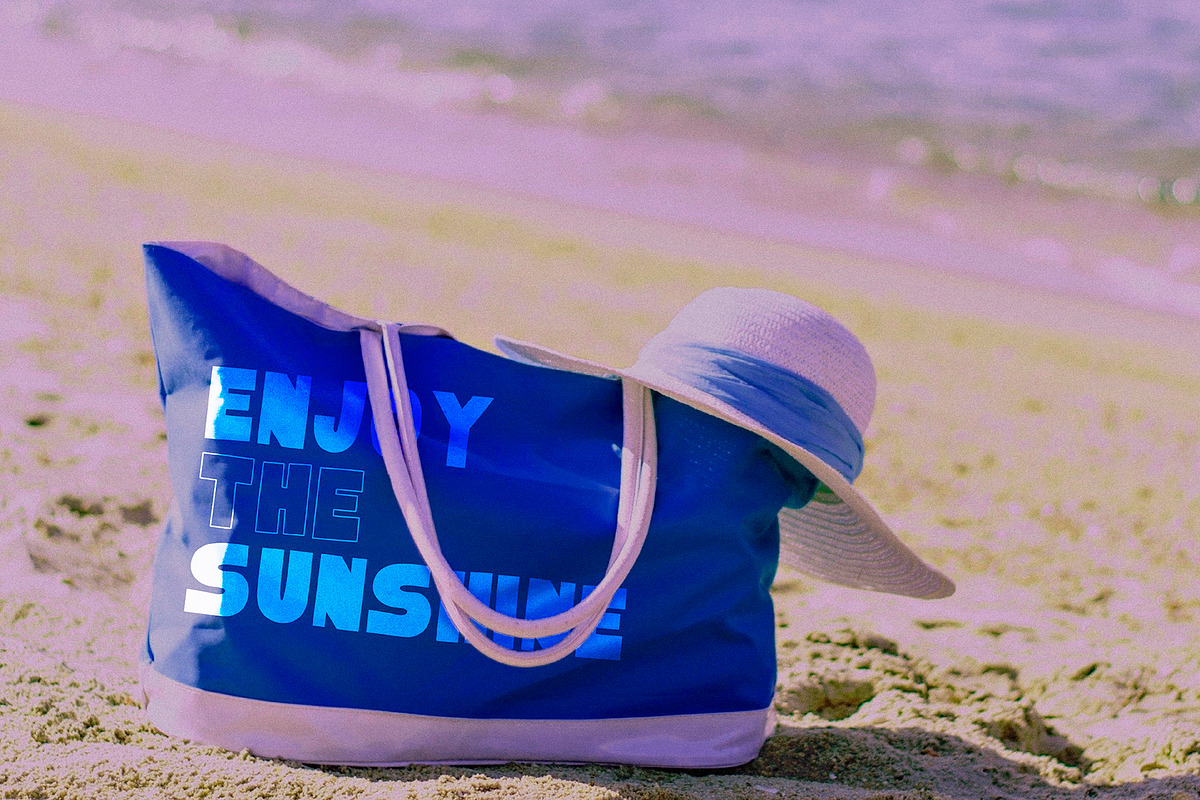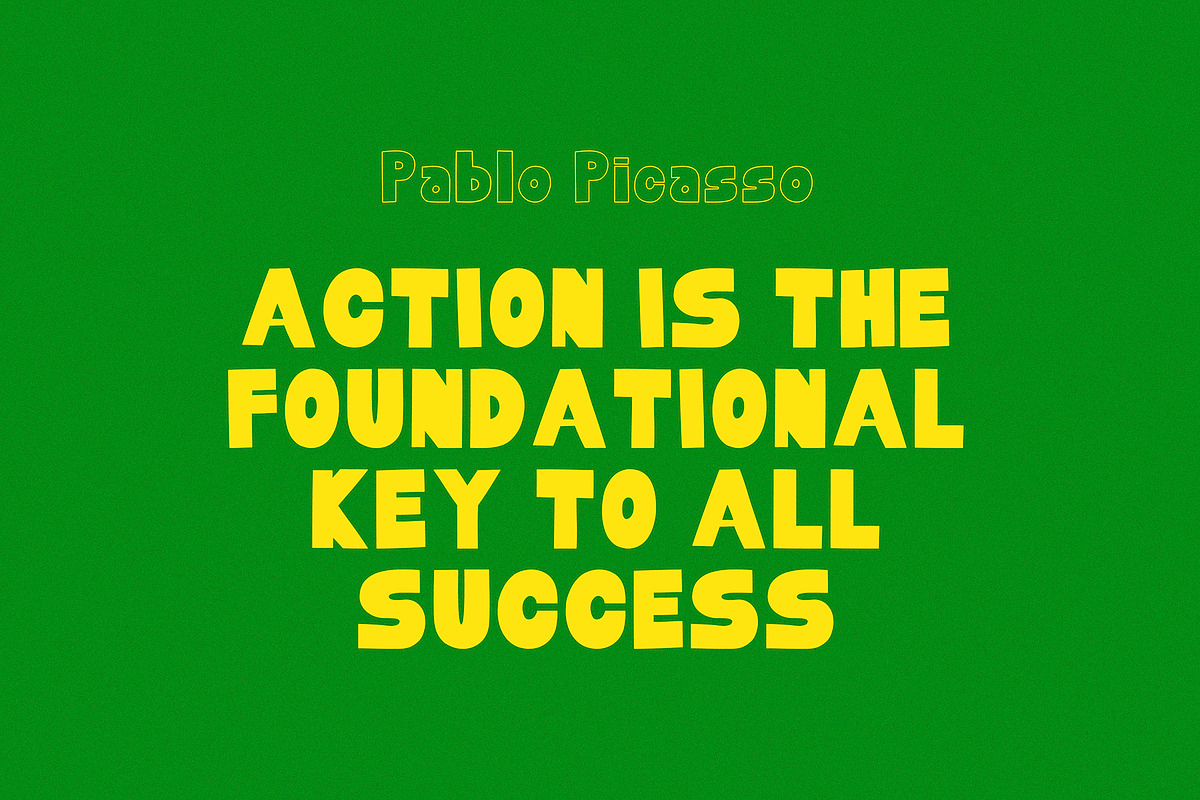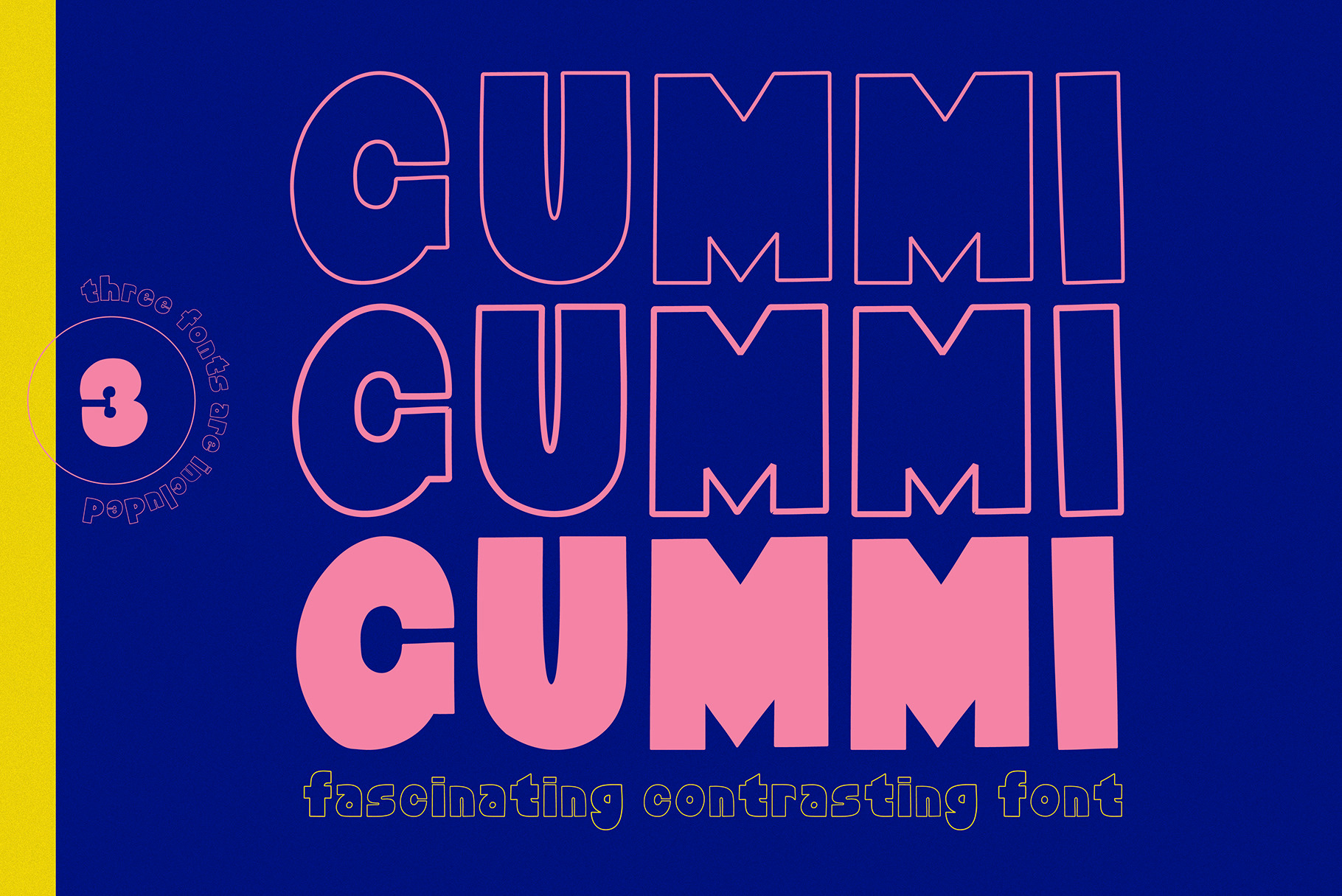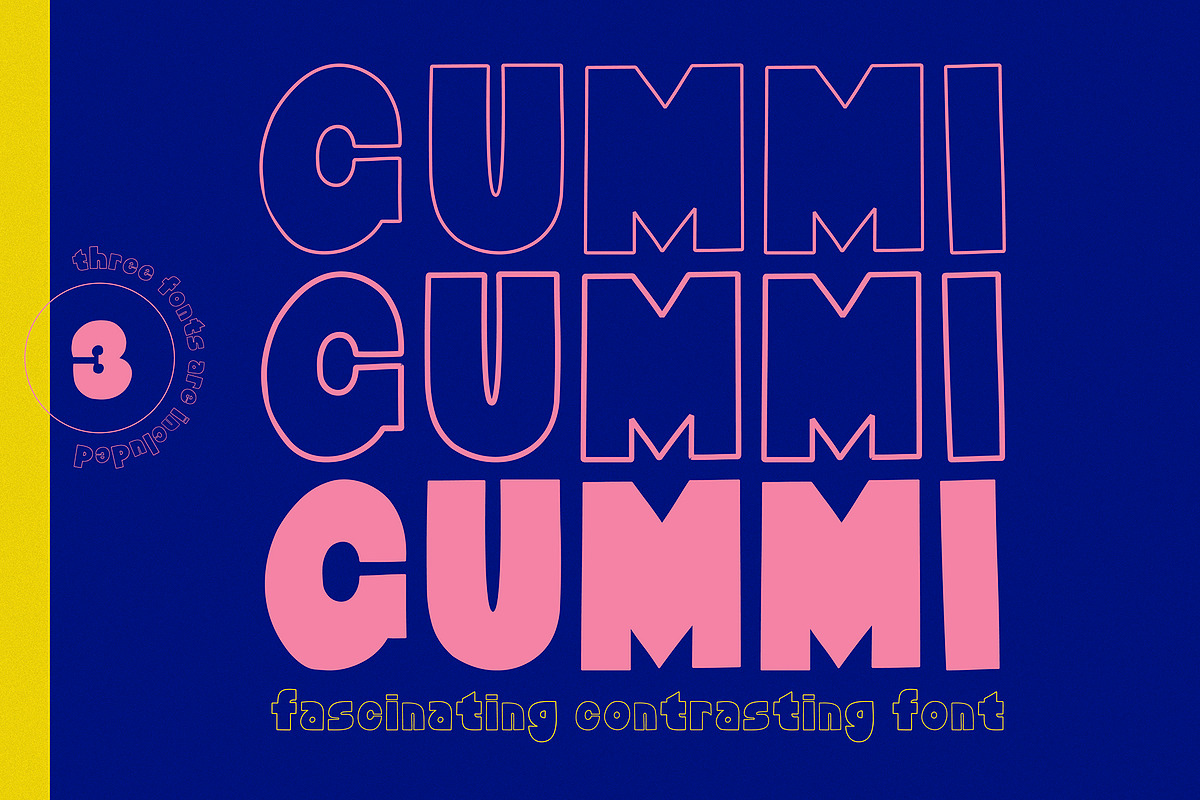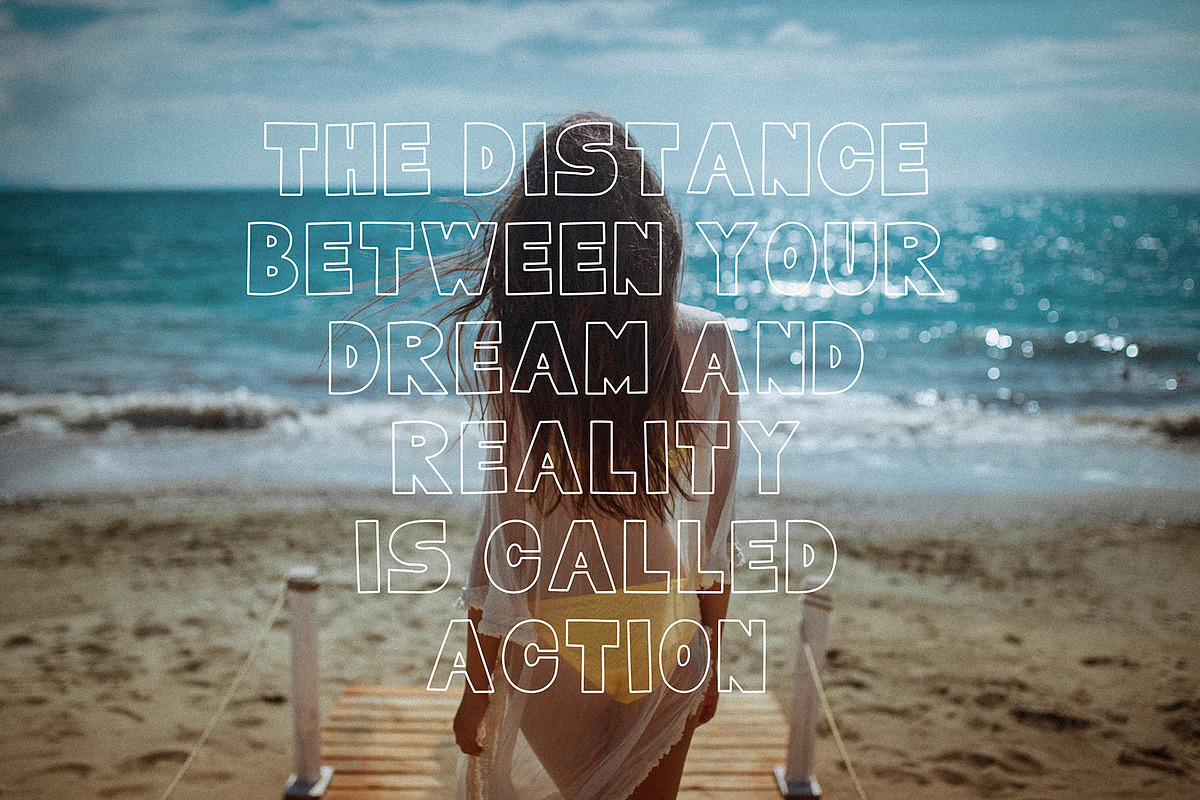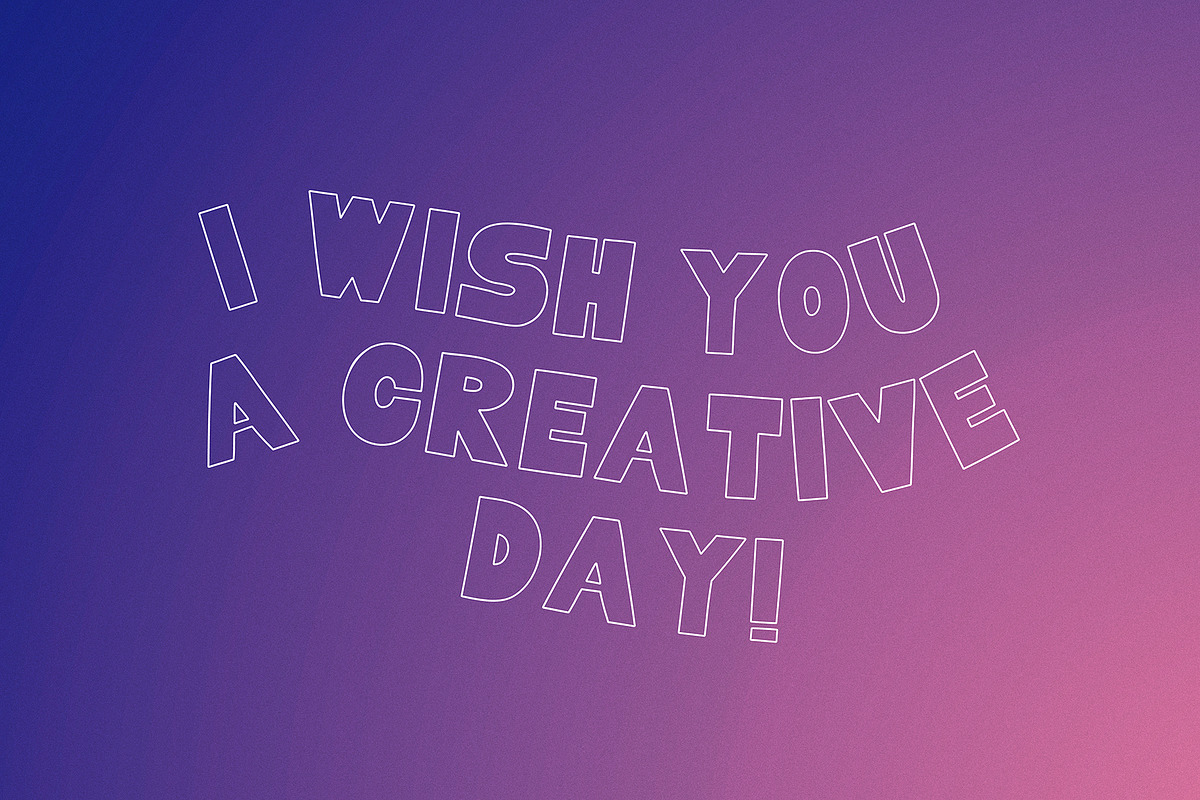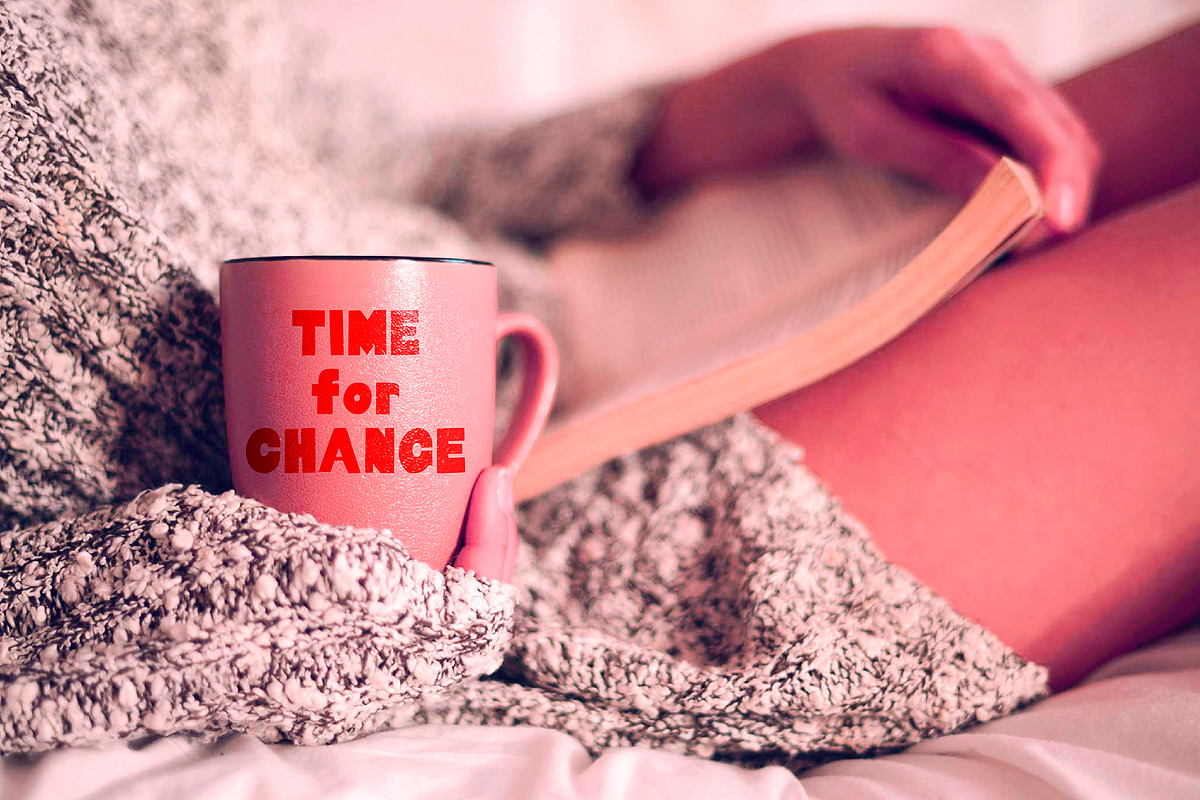
Fascinating contrasting font Gummi
I present to you a fascinating contrasting font system, Gummi! Modern development of 3 fonts, each of which is designed to complement each other in a natural way. This is an extremely versatile font collection, ideal for experimenting with vibrant and modern typographic designs in any modern design.